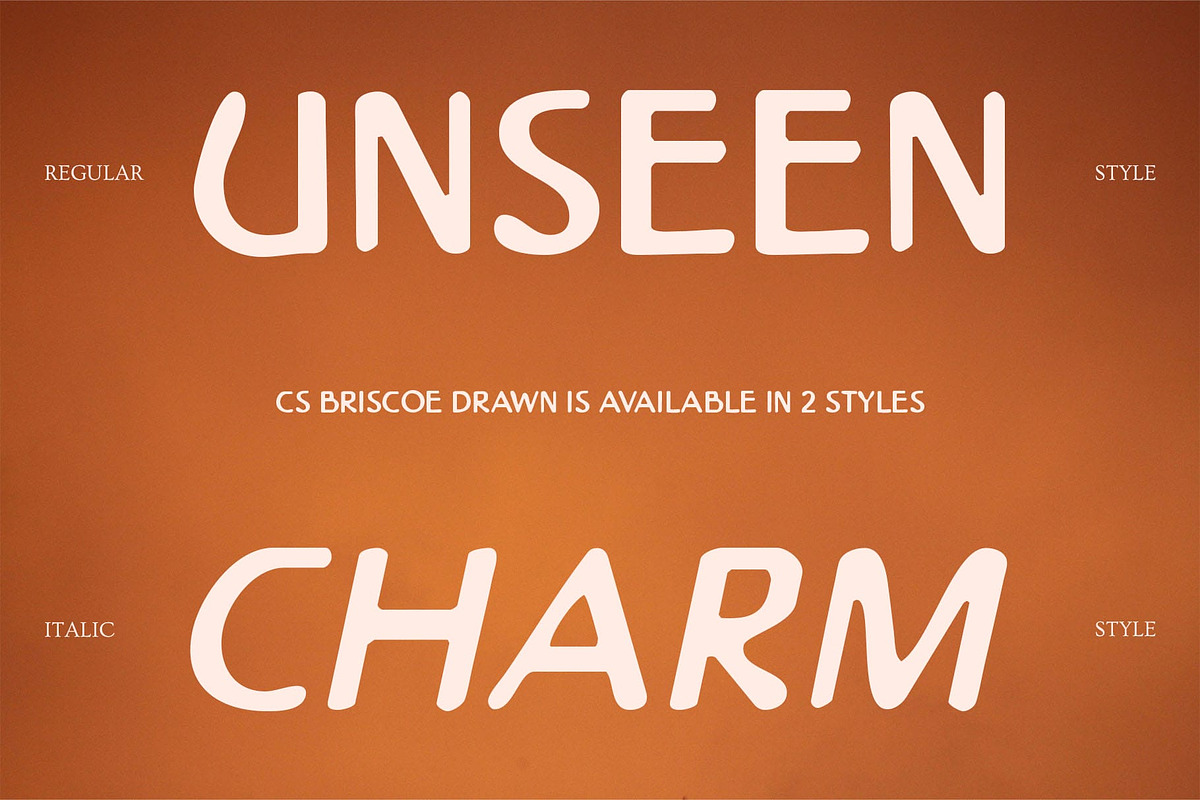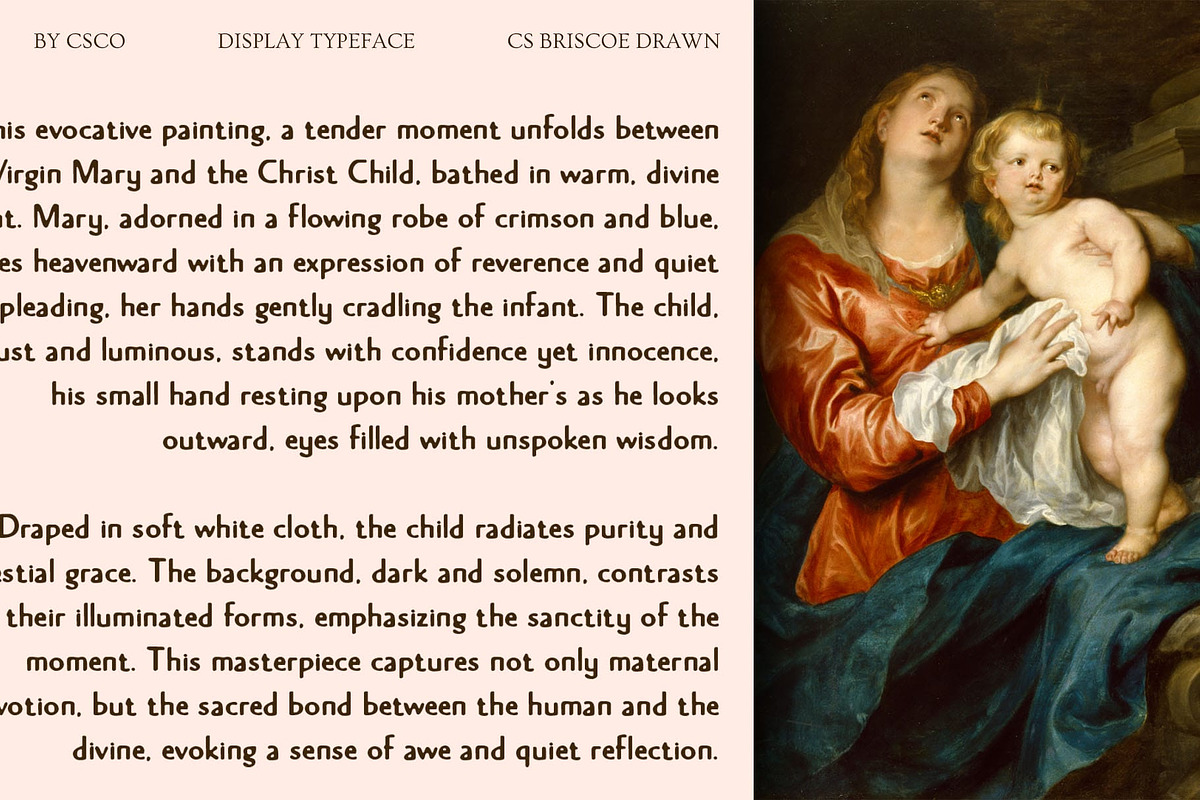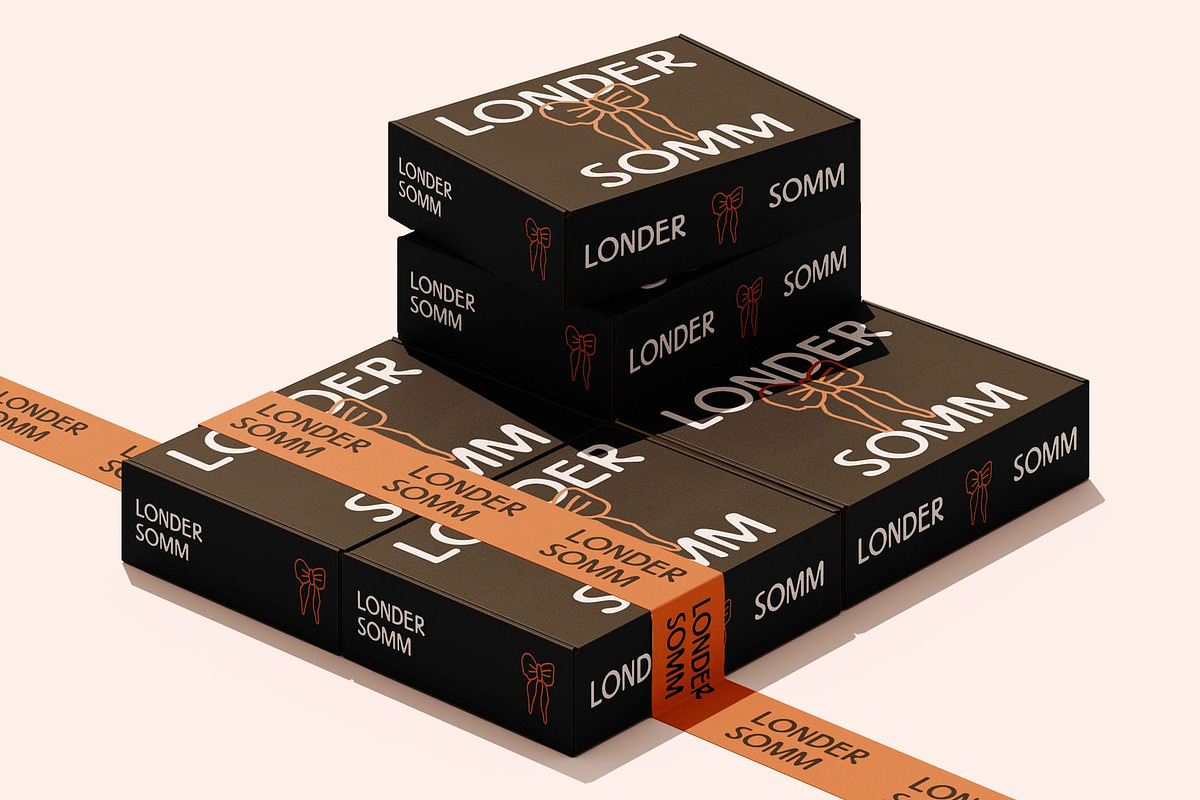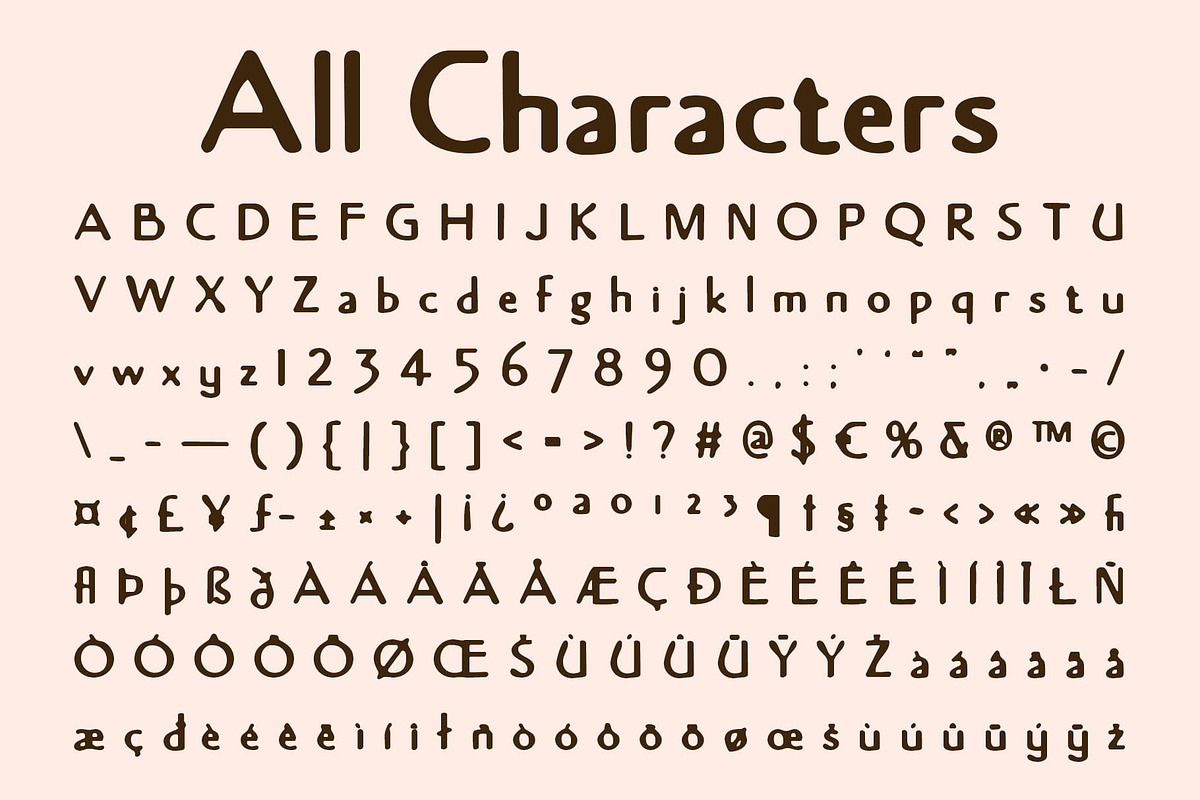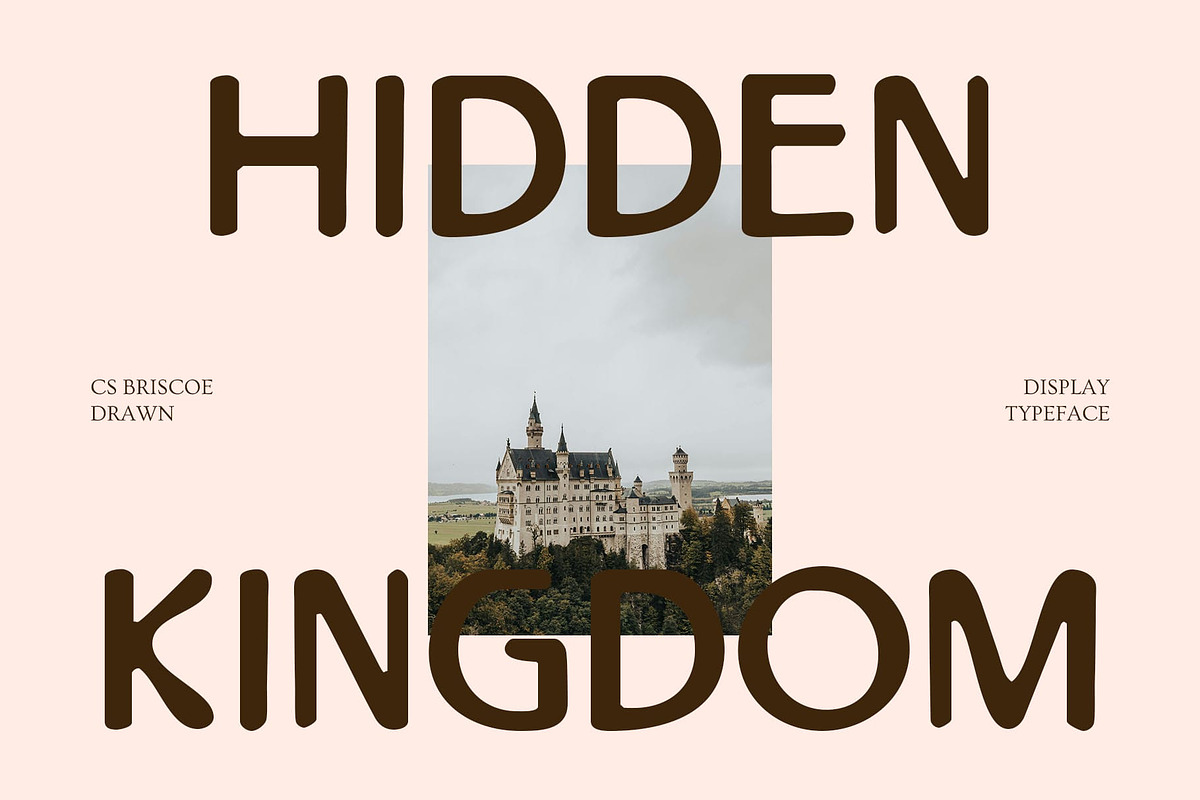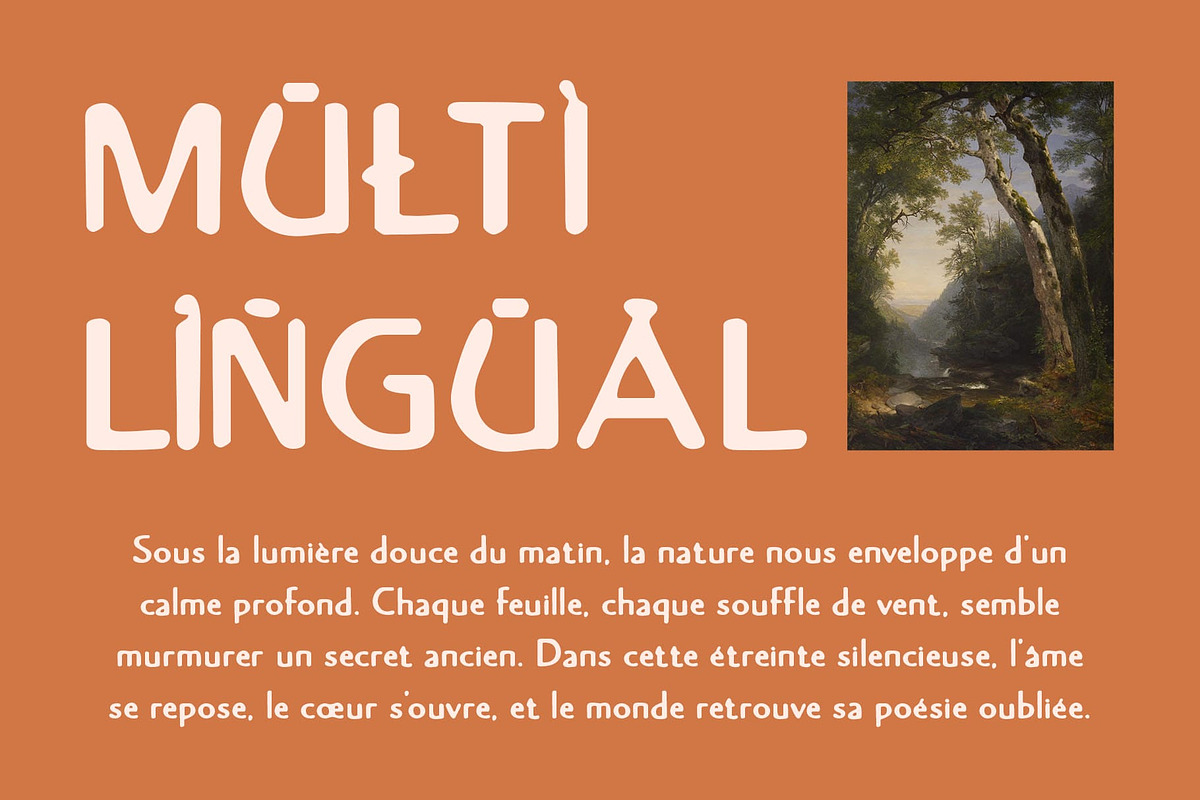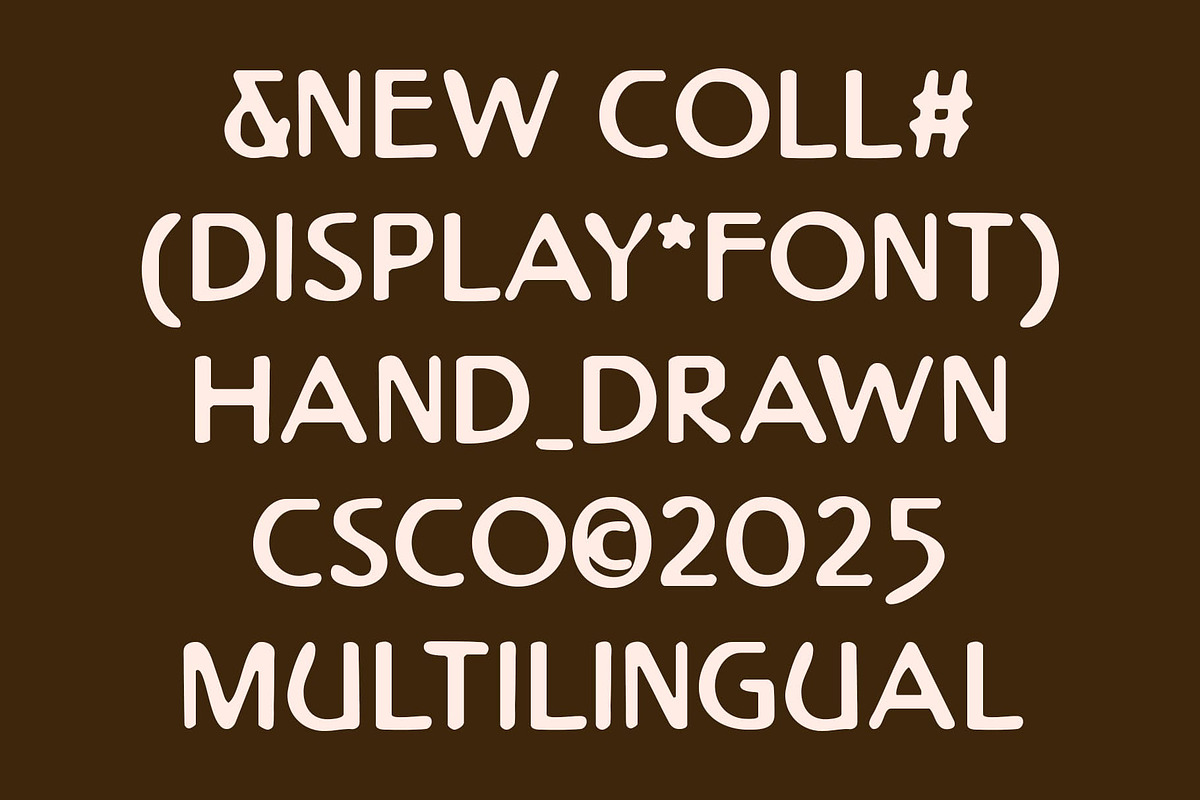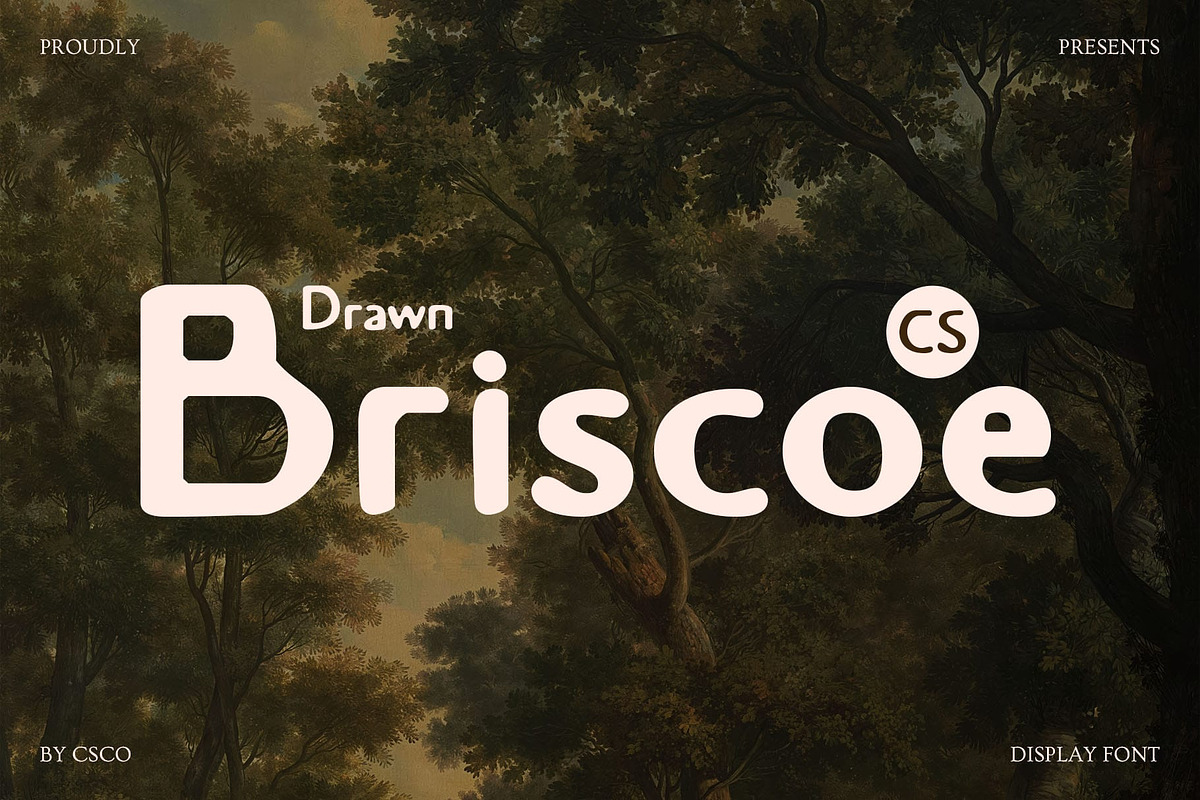
CS Briscoe Drawn
CS Briscoe Drawn: Elegance Refined with an Artistic Touch
Sleek and Graceful Contemporary Serif CS Briscoe Drawn is a modern serif font that embraces sleek, clean lines paired with refined elegance. Its contemporary proportions and delicate curves create a graceful presence that feels both stylish and timeless—perfect for high-end and emotionally resonant designs.
Subtle Drawn Effect for Artistic Expression What sets this sophisticated font apart is its soft, hand-drawn effect subtly integrated into the letterforms. This drawn detail brings warmth and personality to the typeface, adding a gentle, human quality that evokes craftsmanship and artistic flair.
Luxury and Sophistication in Every Stroke With its fine structure and well-balanced shapes, this modern classic font communicates sophistication and luxury. The smooth contrast and airy spacing give it an upscale feel, ideal for design work that needs to convey elegance without being overly formal.
Ideal for Editorials, Invitations, and Branding This elegant and artistic font excels in editorial layouts, wedding invitations, and branding projects that require a refined and expressive tone. Whether used for headlines or decorative text, it adds charm and distinction to every design it graces.
A Unique Blend of Beauty and Personality Blending structure with softness, this font bridges the gap between classic and creative. Its drawn accents make it perfect for designers who want to highlight uniqueness, emotion, and beauty in visual storytelling.